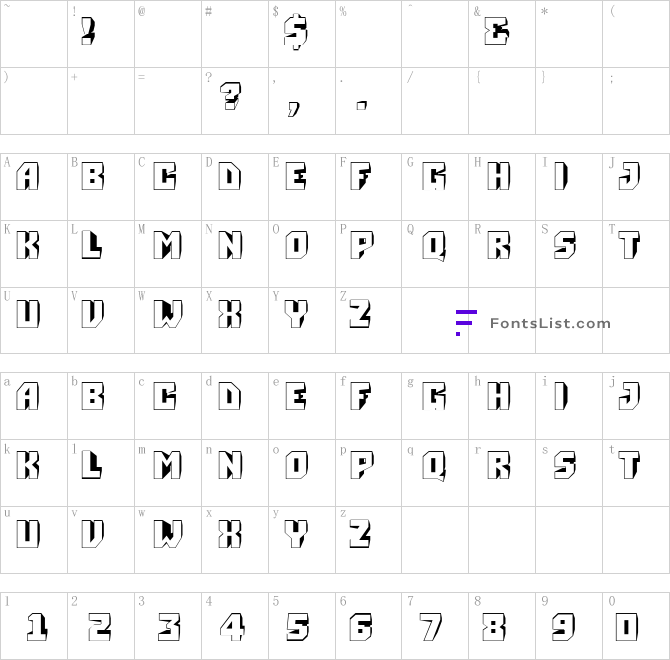
a_Simpler3Dreal.ttf is a very beautiful artistic font, a_Simpler3Dreal.ttf is widely used in the design and printing of various books and pictures,a_Simpler3Dreal.ttf has a strong visual impact,a_Simpler3Dreal.ttf is a commonly used font in newspapers, magazines and books, and is used in posters, e-commerce Poster design, store design, logo design, font design and other fields.a_Simpler3Dreal.